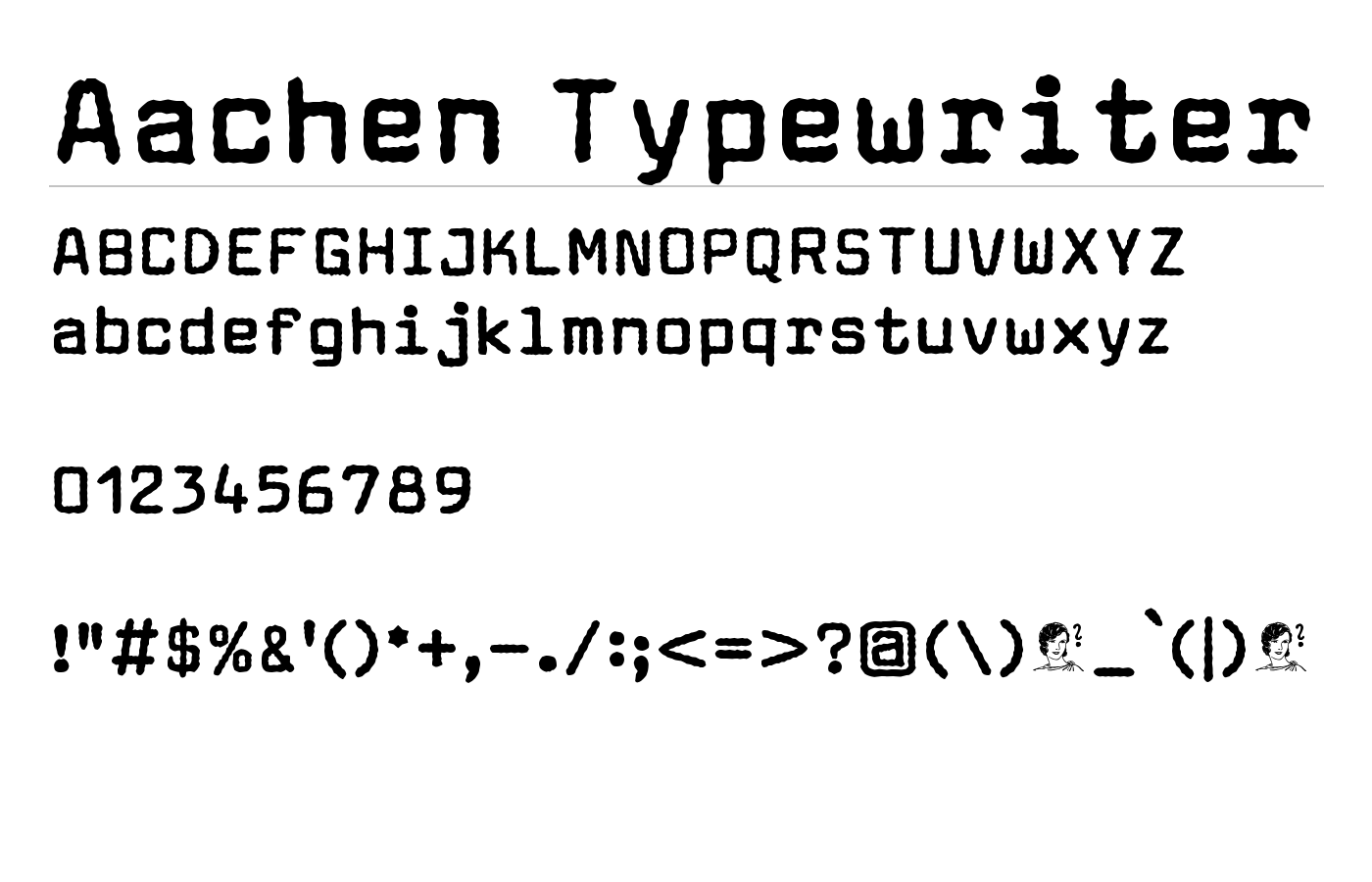
Aachen Typewriter is a distinctive monospaced serif font that mimics the textured, imperfect look of vintage typewritten text. With its rough edges, moderate weight, and uniform width, it evokes a nostalgic, mechanical charm while maintaining clear readability. This font works perfectly for retro-themed designs, creative headlines, or projects seeking an authentic, old-school typewriter feel.
Aachen Typewriter Font
About Aachen Typewriter Font
| Designer | Lukas Krakora |